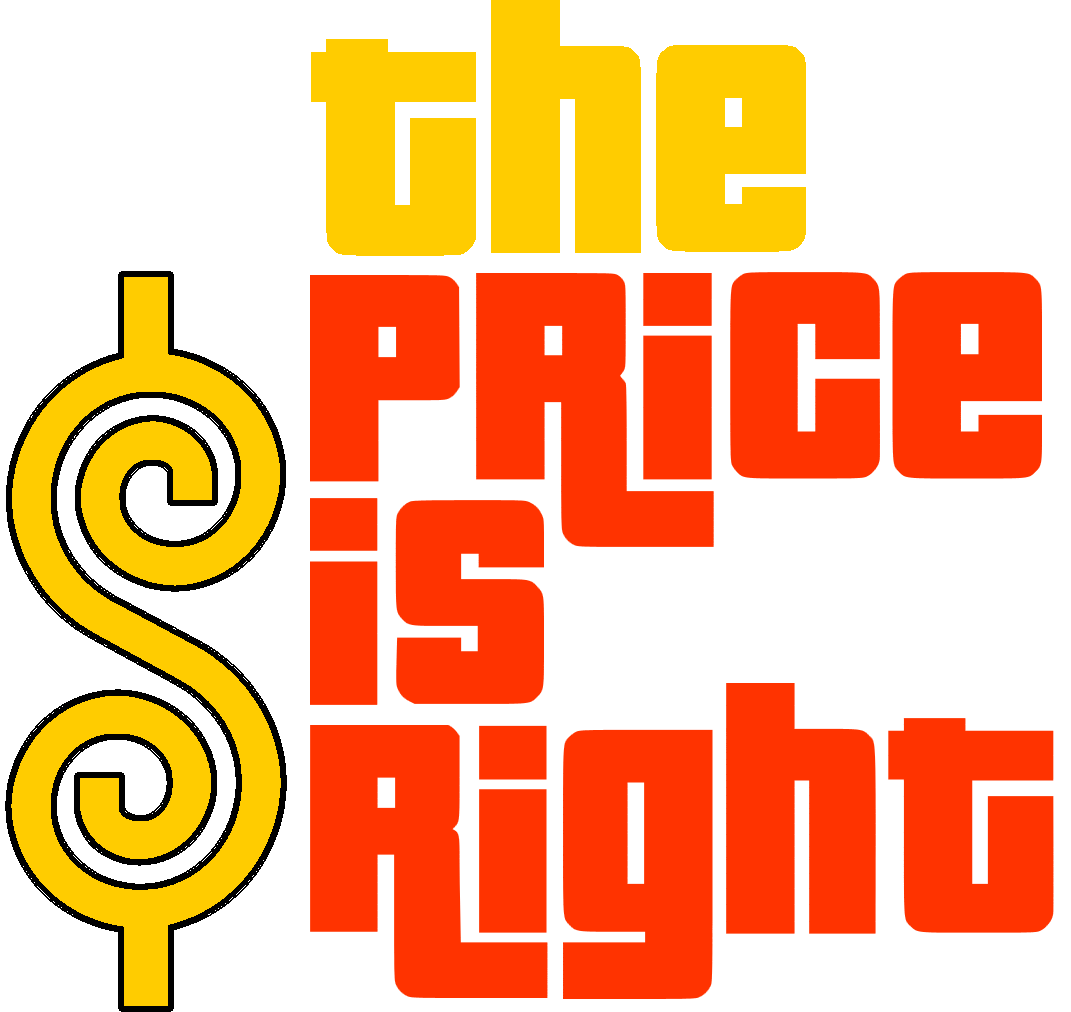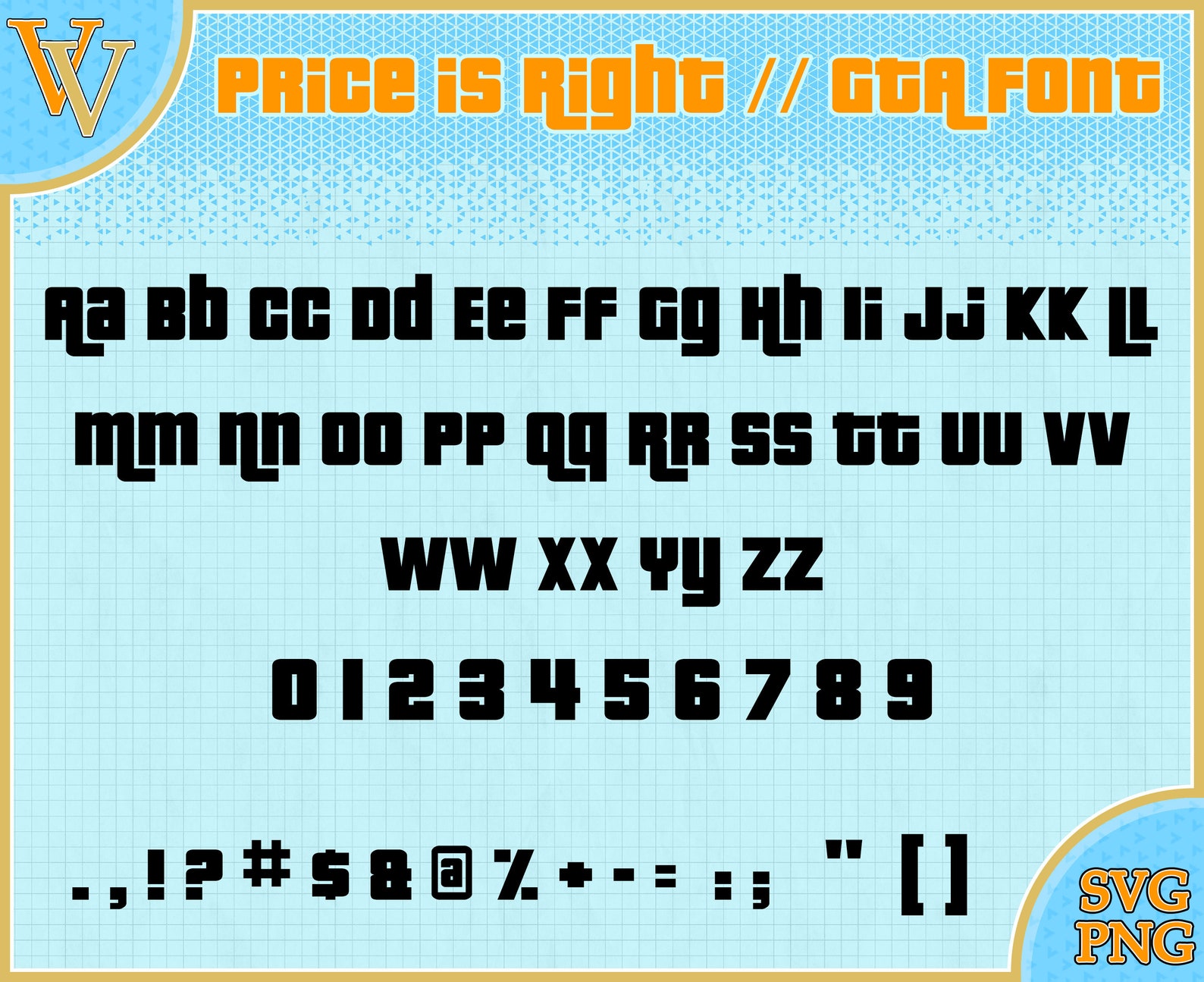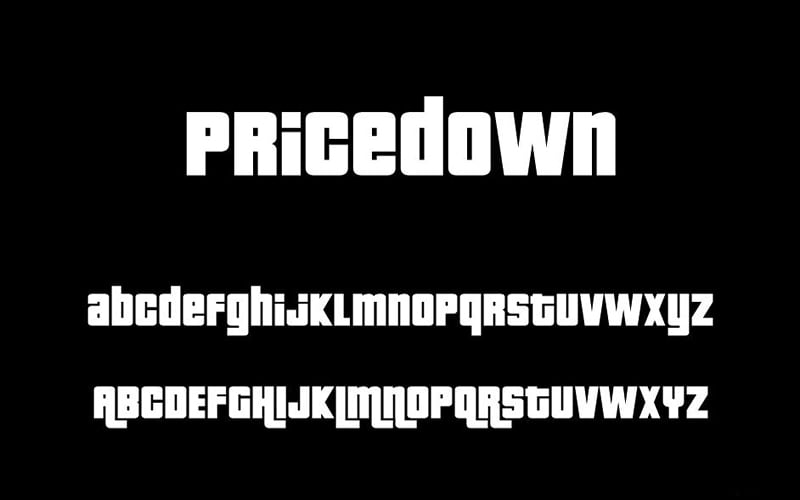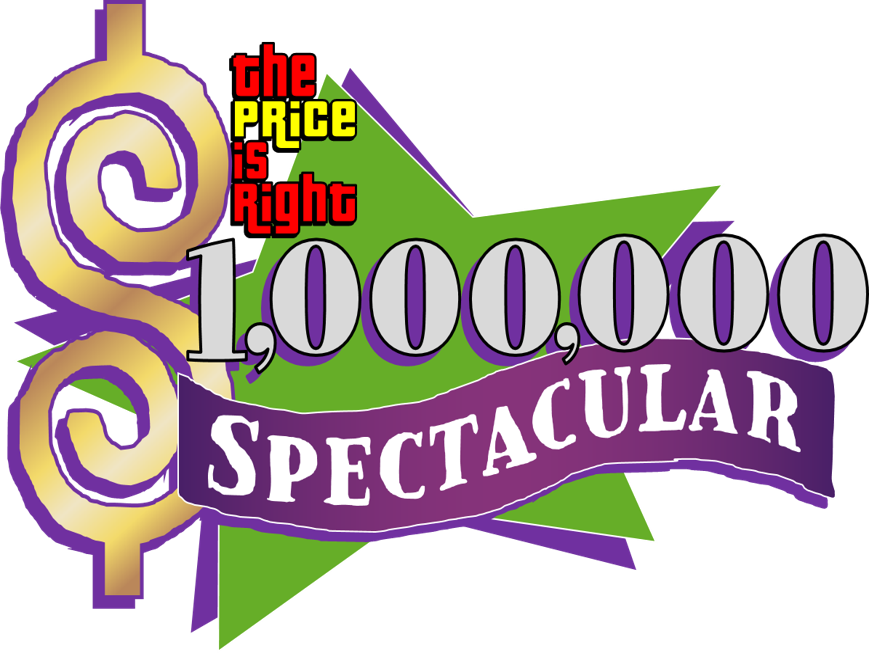
Price Is Right Font
Price Is Right Font - Looking for the price is right fonts? Web the price is right is an american game show first aired in 1956. Web pricedown is an interpretation of an early 1970s display typeface called pinto flare. Web pricedown by larabie fonts is a font based on the title logo from the tv show the price is right. In the game show, contestants compete to identify the pricing of merchandise and win cash and prizes. Web the price is right font generator & download is available free at fontbolt. Try our text generator and create cool graphics for the price is right font, then you can save the. It is a free font. It was famously used as the logotype for the us game show, the price is right as well. Every font is free to download!
In the game show, contestants compete to identify the pricing of merchandise and win cash and prizes. Try our text generator and create cool graphics for the price is right font, then you can save the. Web the price is right is an american game show first aired in 1956. Web pricedown is an interpretation of an early 1970s display typeface called pinto flare. Web the price is right font generator & download is available free at fontbolt. Every font is free to download! It is a free font. Click to find the best 3 free fonts in the the price is right style. Web pricedown by larabie fonts is a font based on the title logo from the tv show the price is right. It was famously used as the logotype for the us game show, the price is right as well.
Looking for the price is right fonts? Web the price is right font generator & download is available free at fontbolt. Try our text generator and create cool graphics for the price is right font, then you can save the. It was famously used as the logotype for the us game show, the price is right as well. Web the price is right is an american game show first aired in 1956. Web pricedown by larabie fonts is a font based on the title logo from the tv show the price is right. It is a free font. Web pricedown is an interpretation of an early 1970s display typeface called pinto flare. Click to find the best 3 free fonts in the the price is right style. In the game show, contestants compete to identify the pricing of merchandise and win cash and prizes.
Web pricedown is an interpretation of an early 1970s display typeface called pinto flare. Click to find the best 3 free fonts in the the price is right style. Web the price is right font generator & download is available free at fontbolt. Try our text generator and create cool graphics for the price is right font, then you can.
Web the price is right is an american game show first aired in 1956. Every font is free to download! It was famously used as the logotype for the us game show, the price is right as well. Web the price is right font generator & download is available free at fontbolt. Try our text generator and create cool graphics.
It was famously used as the logotype for the us game show, the price is right as well. Web pricedown by larabie fonts is a font based on the title logo from the tv show the price is right. Click to find the best 3 free fonts in the the price is right style. In the game show, contestants compete.
Every font is free to download! Web the price is right font generator & download is available free at fontbolt. It is a free font. Looking for the price is right fonts? Web pricedown is an interpretation of an early 1970s display typeface called pinto flare.
Web pricedown by larabie fonts is a font based on the title logo from the tv show the price is right. Every font is free to download! It was famously used as the logotype for the us game show, the price is right as well. Try our text generator and create cool graphics for the price is right font, then.
Try our text generator and create cool graphics for the price is right font, then you can save the. Click to find the best 3 free fonts in the the price is right style. Web pricedown is an interpretation of an early 1970s display typeface called pinto flare. Web pricedown by larabie fonts is a font based on the title.
Web the price is right font generator & download is available free at fontbolt. It is a free font. Looking for the price is right fonts? Try our text generator and create cool graphics for the price is right font, then you can save the. Web pricedown is an interpretation of an early 1970s display typeface called pinto flare.
Web pricedown is an interpretation of an early 1970s display typeface called pinto flare. Web the price is right font generator & download is available free at fontbolt. Looking for the price is right fonts? Every font is free to download! It is a free font.
It is a free font. Web the price is right font generator & download is available free at fontbolt. Every font is free to download! Try our text generator and create cool graphics for the price is right font, then you can save the. Click to find the best 3 free fonts in the the price is right style.
In the game show, contestants compete to identify the pricing of merchandise and win cash and prizes. Web pricedown by larabie fonts is a font based on the title logo from the tv show the price is right. Every font is free to download! It is a free font.